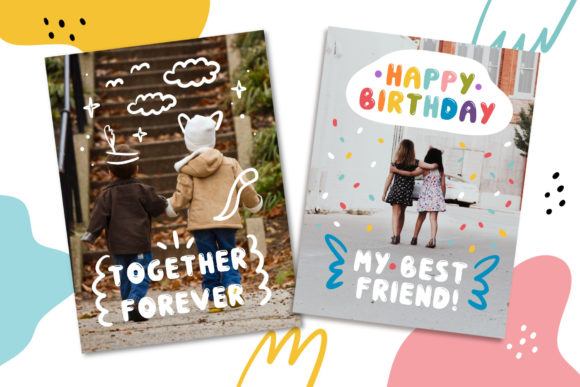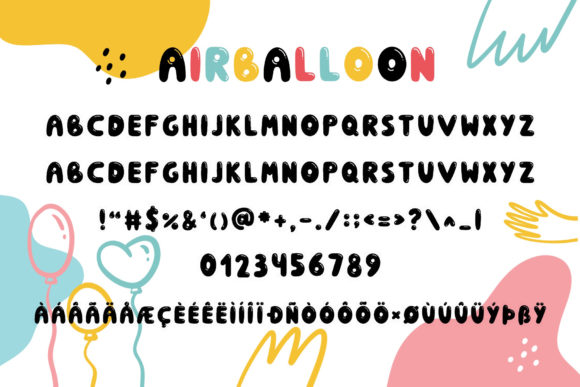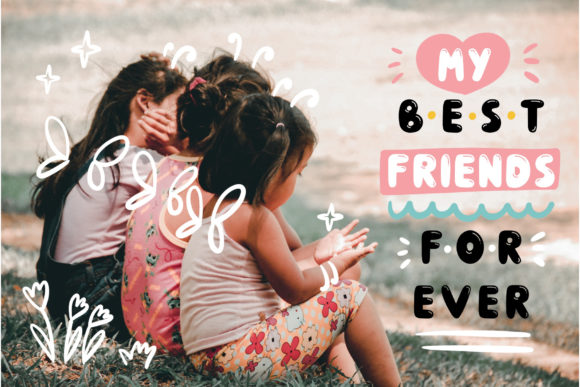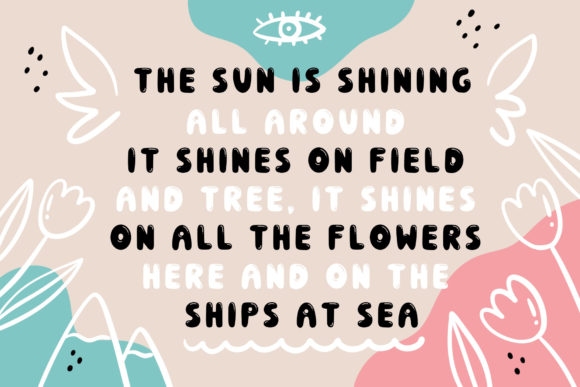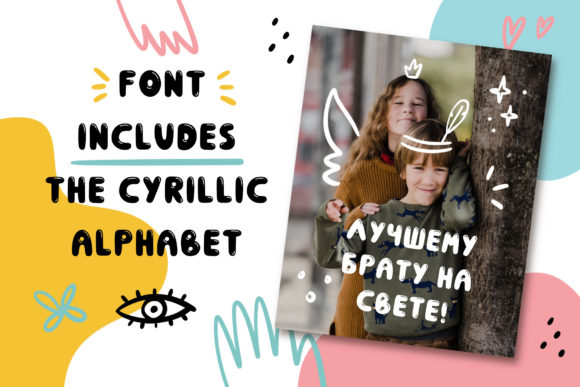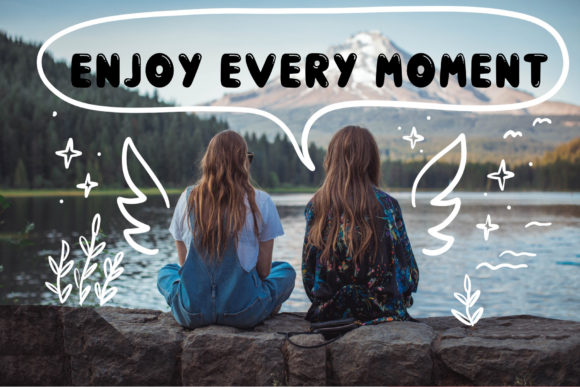
Bring a Touch of Whimsy to Your Designs with Airballoon Font
Have you ever found yourself doodling in the margins of a notebook, letting your pen wander across the page as you create a world of imagination? That’s the magic of Airballoon Font – a font that captures the essence of childhood wonder and brings it to life in your designs.
Airballoon Font is a delightful display font that’s perfect for any children’s activity or school project. Its chunky letters and playful feel make it an instant hit with kids, and designers alike. Whether you’re creating educational materials, party invitations, or simply want to add a touch of whimsy to your brand’s visual identity, Airballoon Font is the perfect choice.
Key Features of Airballoon Font
- Font Family: Airballoon
- Unique Characteristics: Features a whimsical, hand-drawn style with a mix of bold and delicate lines, making it suitable for titles, headings, and decorative text
Designer Review: Airballoon Font
Overall, I found the Airballoon Font to be a unique and interesting addition to any design project. ✨ The font’s playful and whimsical feel makes it perfect for branding and marketing materials that need a touch of fun and personality. The variety of styles and weights available also allows for a high degree of customization, making it suitable for a wide range of applications.
- Highly customizable with various styles and weights
- Unique and playful feel that’s perfect for branding and marketing materials
- Well-suited for digital and print applications
However, I do have a few concerns about the font’s limitations. ⚠️ One of the main issues I encountered was the font’s readability, particularly at smaller sizes. The font’s complex strokes and shapes can make it difficult to read in certain contexts. Additionally, the font’s aesthetic may not be suitable for all audiences, particularly those who prefer more traditional or minimalist designs.
Overall, I would recommend the Airballoon Font to designers who are looking for a unique and playful font to add some personality to their projects. However, I would caution against using it in situations where readability is a top priority.
The Airballoon font is perfect for:
- Balloons and party invitations.
- Children’s book illustrations.
- Wedding invitations and decorations.
For best results, use the Airballoon font in bold and playful combinations with bright colors and fun graphics.